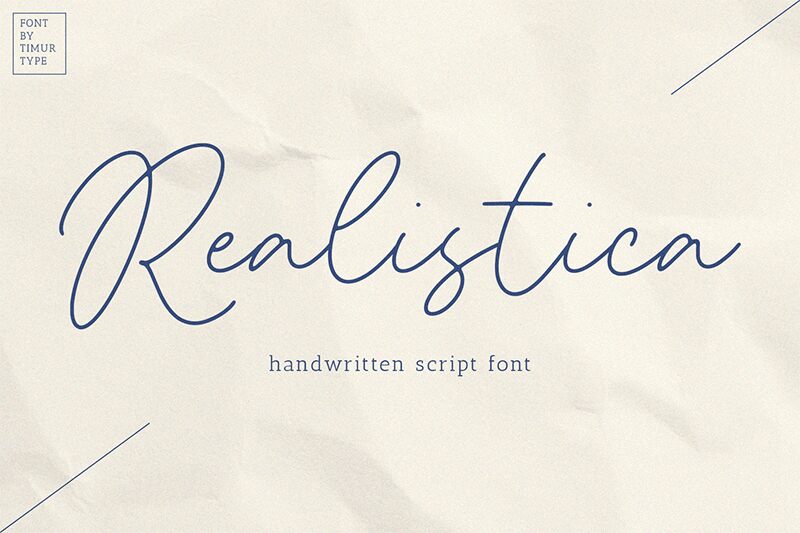
Realistica
Realistica, a captivating handwritten font designed by Timur Type, effortlessly blends graceful curves and delicate strokes, evoking a sense of organic elegance. This light-weight typeface exudes a personal, genuine touch, inviting the reader to connect with the content on a deeper level. The flowing, natural rhythm of the letterforms creates a sense of fluidity and movement, making Realistica an excellent choice for projects that require a personal, handcrafted aesthetic.
With its versatile and adaptable nature, Realistica can elevate a wide range of design applications, from editorial layouts and packaging design to branding and marketing materials. The font's expressive qualities lend themselves beautifully to evocative title treatments, captivating body copy, and impactful call-to-actions, allowing designers to craft narratives that resonate with their audience.